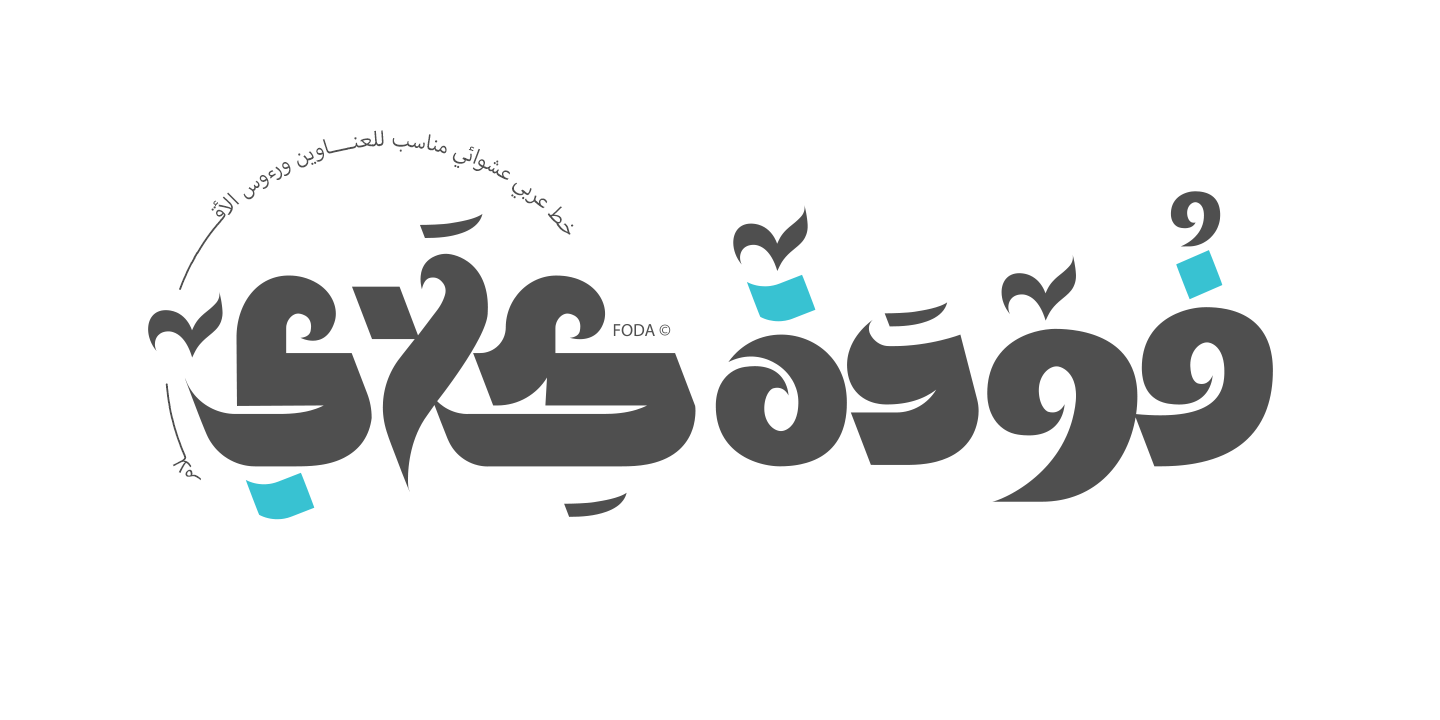
If you're looking for a bold, urban-inspired typeface with a street art vibe, Foda Klay Font Free Download is the perfect choice for your creative projects. This striking display font features sharp, edgy letterforms with a graffiti-influenced style, making it ideal for posters, album covers, logos, apparel designs, skateboarding brands, and promotional materials that need an energetic, rebellious touch. Its raw, artistic design instantly captures attention and adds personality to any project.
Foda Klay Font offers solid readability while maintaining its bold, expressive character. It includes multilingual support and a variety of glyphs, giving designers flexibility to create impactful, custom typography. Whether you're crafting visuals for a music event or building branding for an edgy fashion label, this font brings boldness and urban flair to your designs.